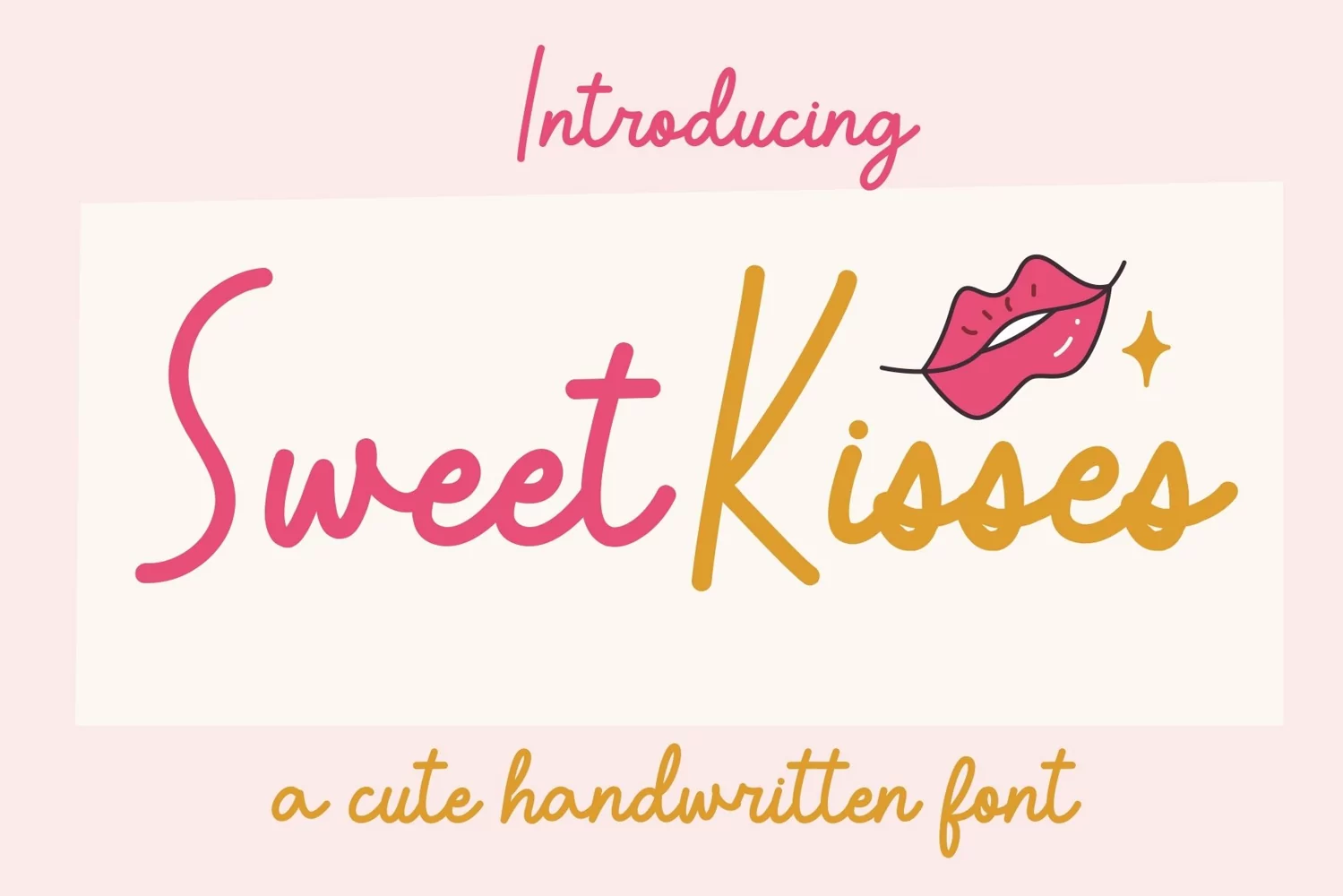
Sweet Kisses is a Cute Handwritten font,
Sweet Kisses it's the perfect choice for handwritten quotes, product packaging,Food logo, menu design, wedding stationery, Greeting cards design , Quotes, modern websites and logo designs with a affectionate touch.
Sweet Kisses